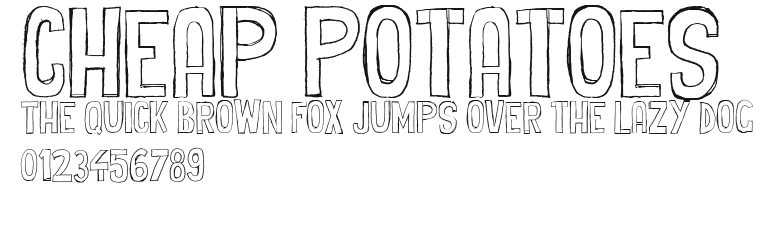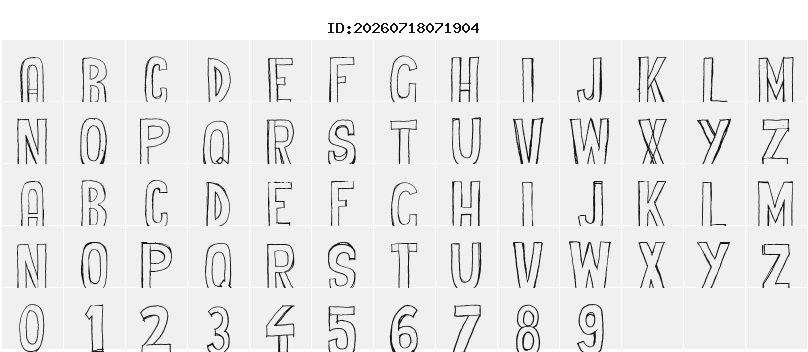
Cheap Potatoes Preview
• Font Name: Cheap Potatoes
• Full Font Name: Cheap Potatoes
• Version: Version 1.00 July 23, 2014, initial release
• PostScript Name: CheapPotatoes
• Description: This font was created using Scanahand from High-Logic.com
About Cheap Potatoes.ttf
Cheap Potatoes.ttf is a modern, elegant sans-serif font designed for ultimate readability and visual harmony. Perfect for branding, headlines, web design, and print materials.